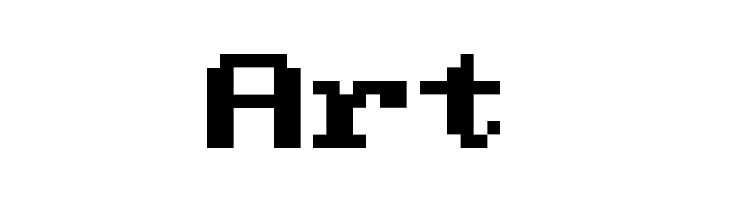
A vintage typewriter-style font with monospaced, textured characters.
A modern, geometric, monospaced font with rounded edges.
A pixelated, monospaced font with a retro digital aesthetic.
A monospaced font designed for clear and legible fraction display.
A monospaced font designed for clear and structured fraction representation.
A pixelated, monospaced font inspired by classic DOS interfaces.
A pixelated, monospaced font with a retro, digital aesthetic.
A pixelated, monospaced typeface inspired by classic DOS interfaces.
A pixelated, monospaced typeface with a retro digital aesthetic.
A pixelated, monospaced font with a retro, digital style.